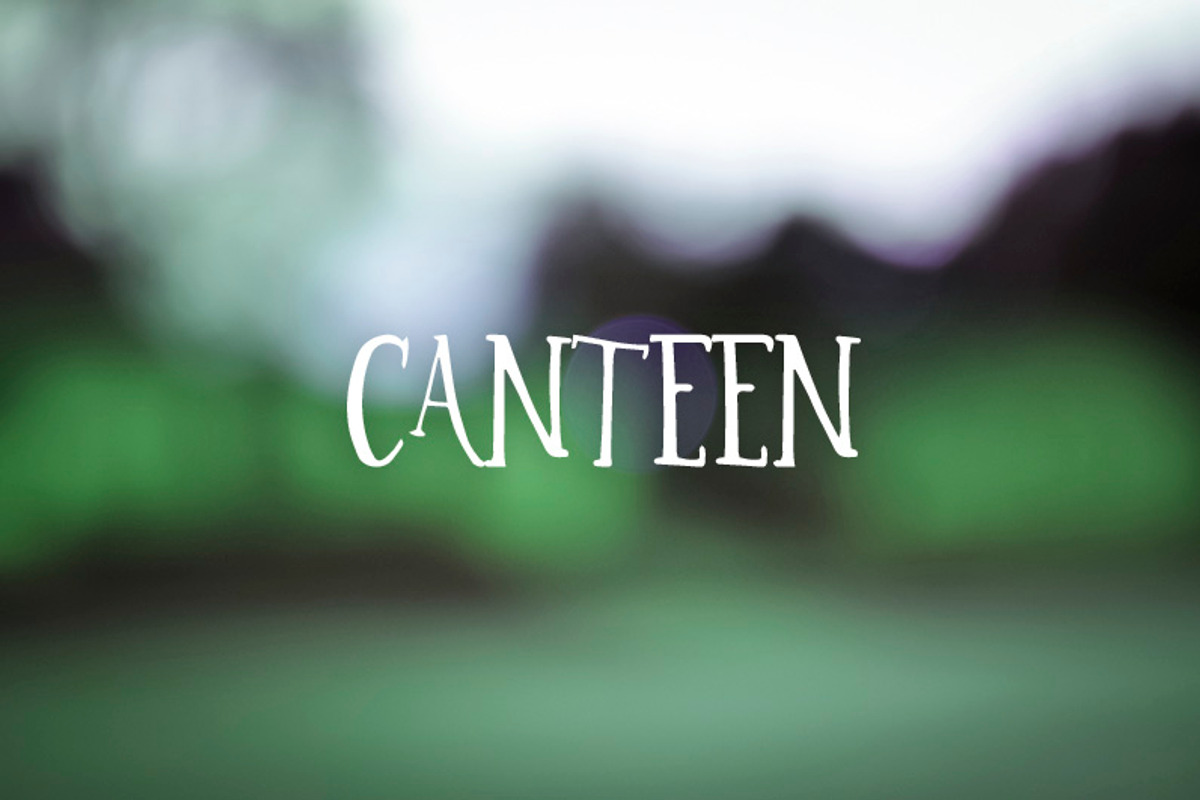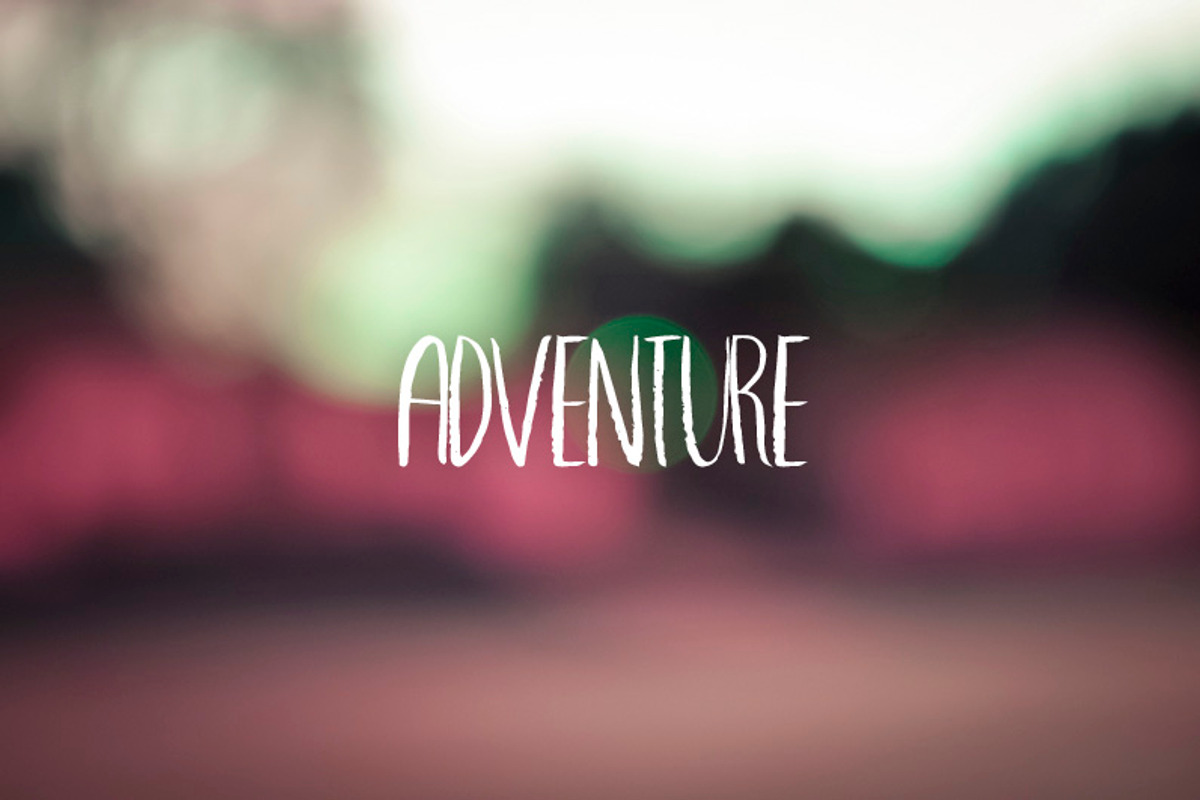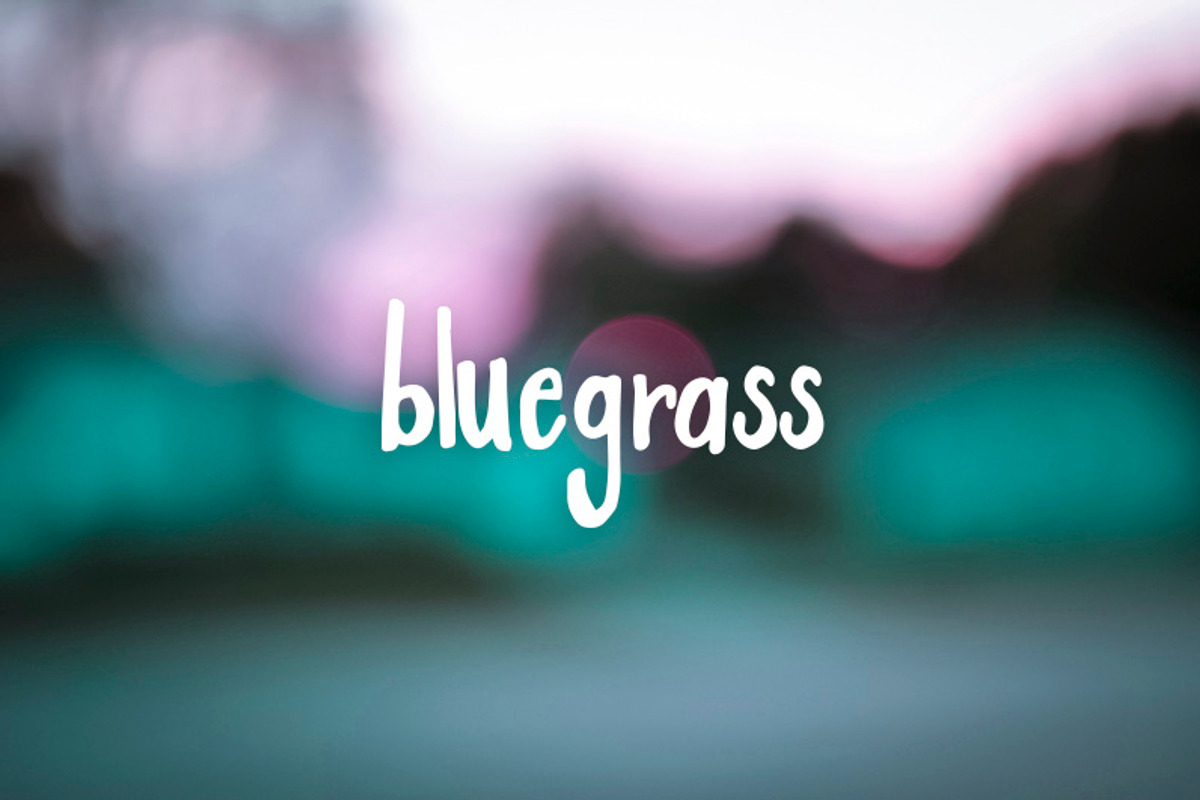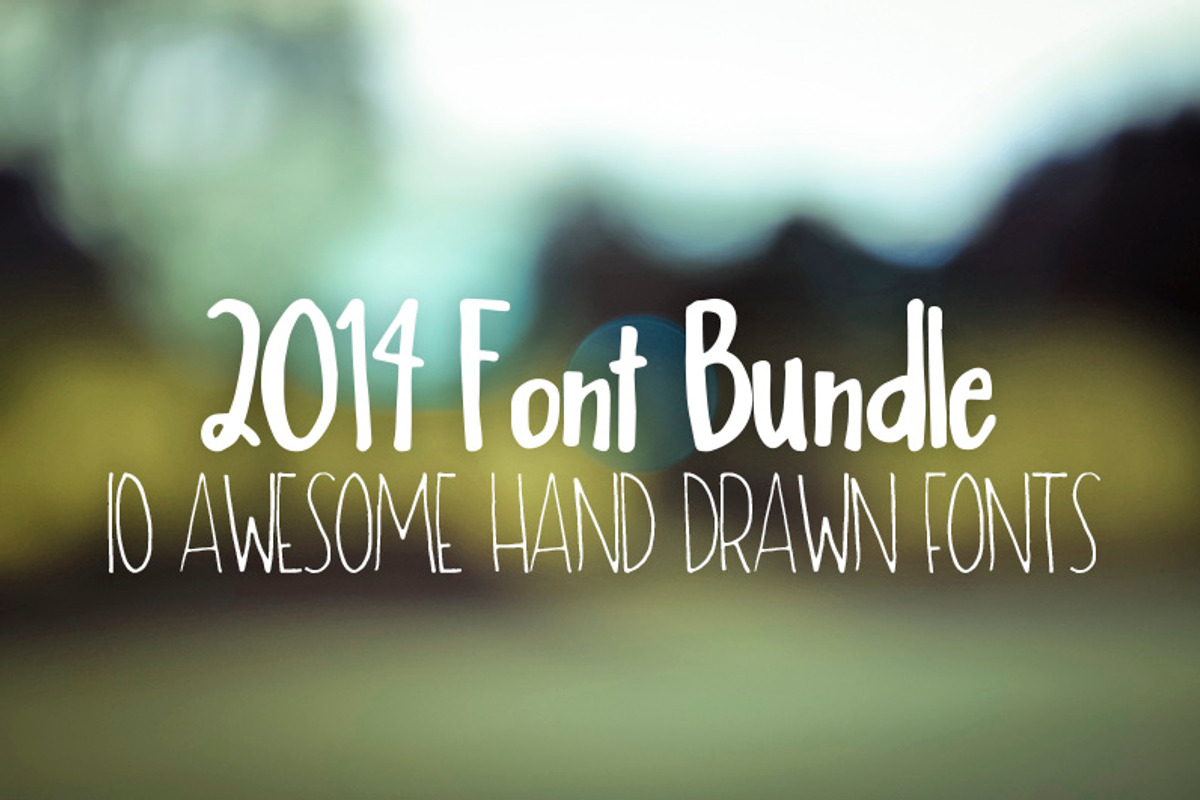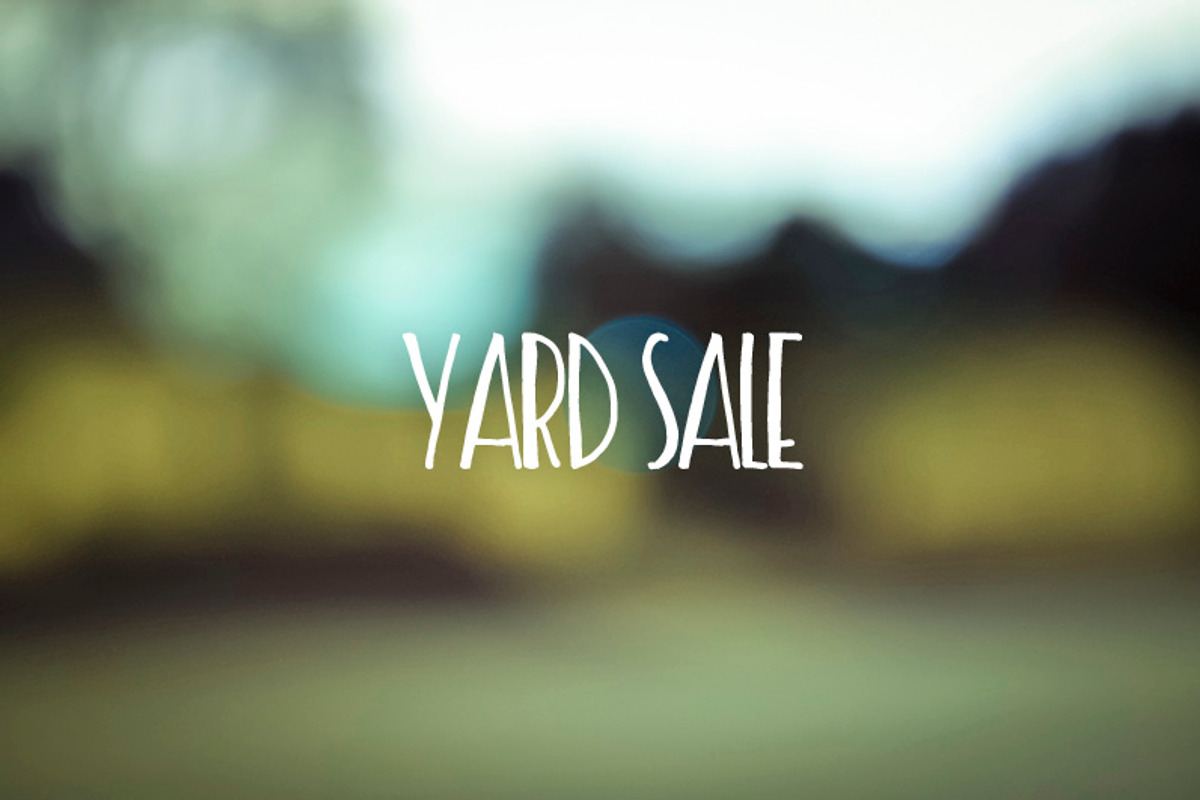
2014 Font Bundle
2014 Font Bundle by OnTheSpotStudio is a font selected for branding, posters, packaging, typography.
- the 2014 font bundle includes my most recent hand painted and lettered fonts I have released.
Why 2014 Font Bundle is worth a look
2014 Font Bundle by OnTheSpotStudio fits naturally into Branding, posters, packaging, typography.